In the world of tech recruitment, innovation is the key to attracting the right minds. With traditional hiring processes often falling short of capturing the curiosity and creativity of top-tier developers, Materna Information & Communications SE—a global leader in IT solutions—set out to redefine how they discover new programming talent. The result is The Beautiful Code Project, an imaginative and interactive recruitment tool that transforms the coding interview into an engaging and creative experience.
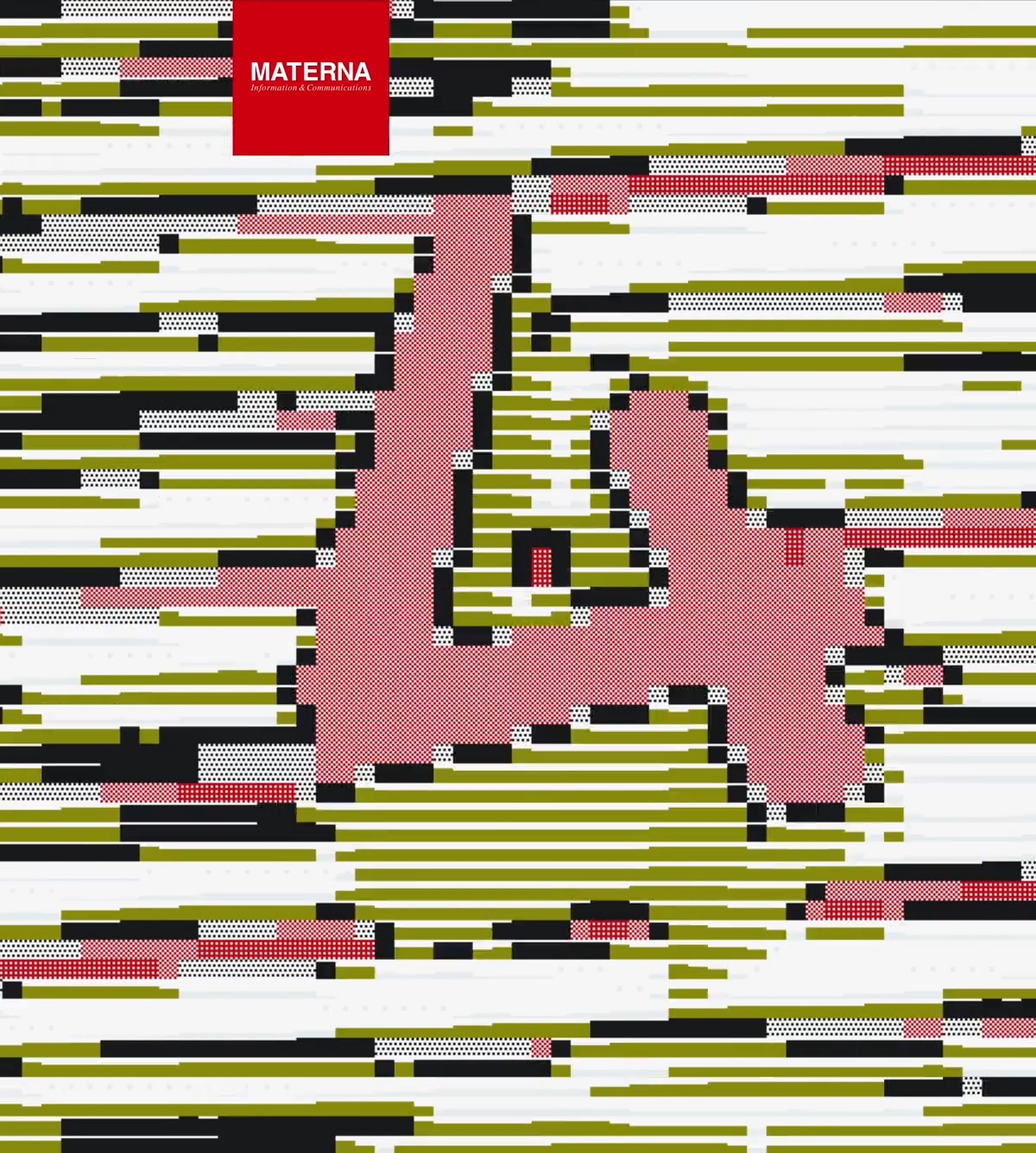
Reimagining Recruitment with Code
Rather than relying on standard application forms and impersonal assessments, Materna posed a pivotal question: How can we create a more engaging process to find new IT talent and programmers?
In collaboration with the creative minds at Meiré und Meiré, a bold new concept emerged—a four-level gamified coding challenge designed to draw in developers not just with tasks, but with puzzles, visuals, and play.
The project was brought to life by Nahuel Gerth, Tim Rodenbröker and Julian Hespenheide, combining their creative coding expertise with a design-driven approach to recruitment. Together, they built something far more meaningful than a skills test: they created a space where programmers could enjoy the process of problem-solving, showcasing both their technical ability and creativity.
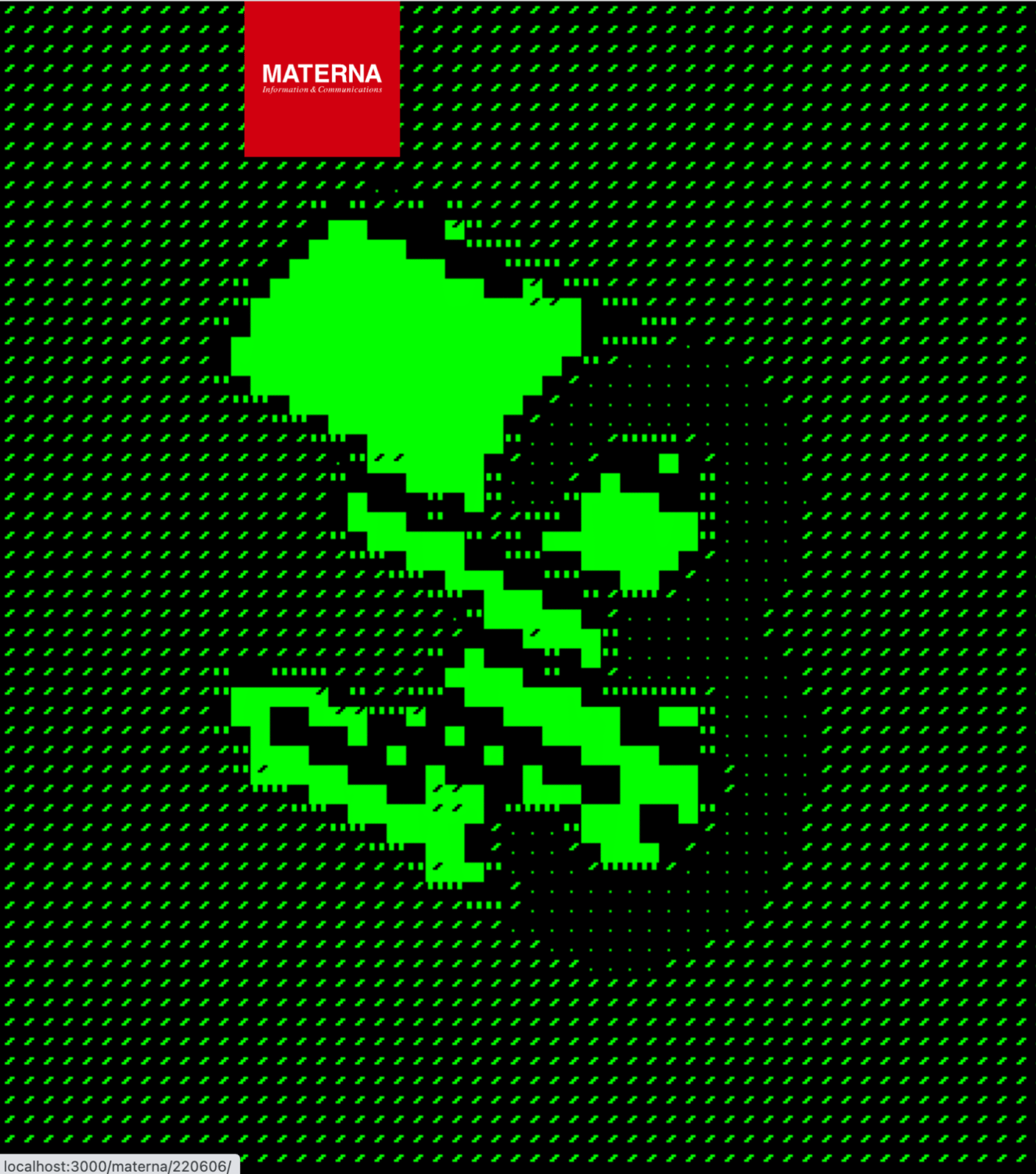
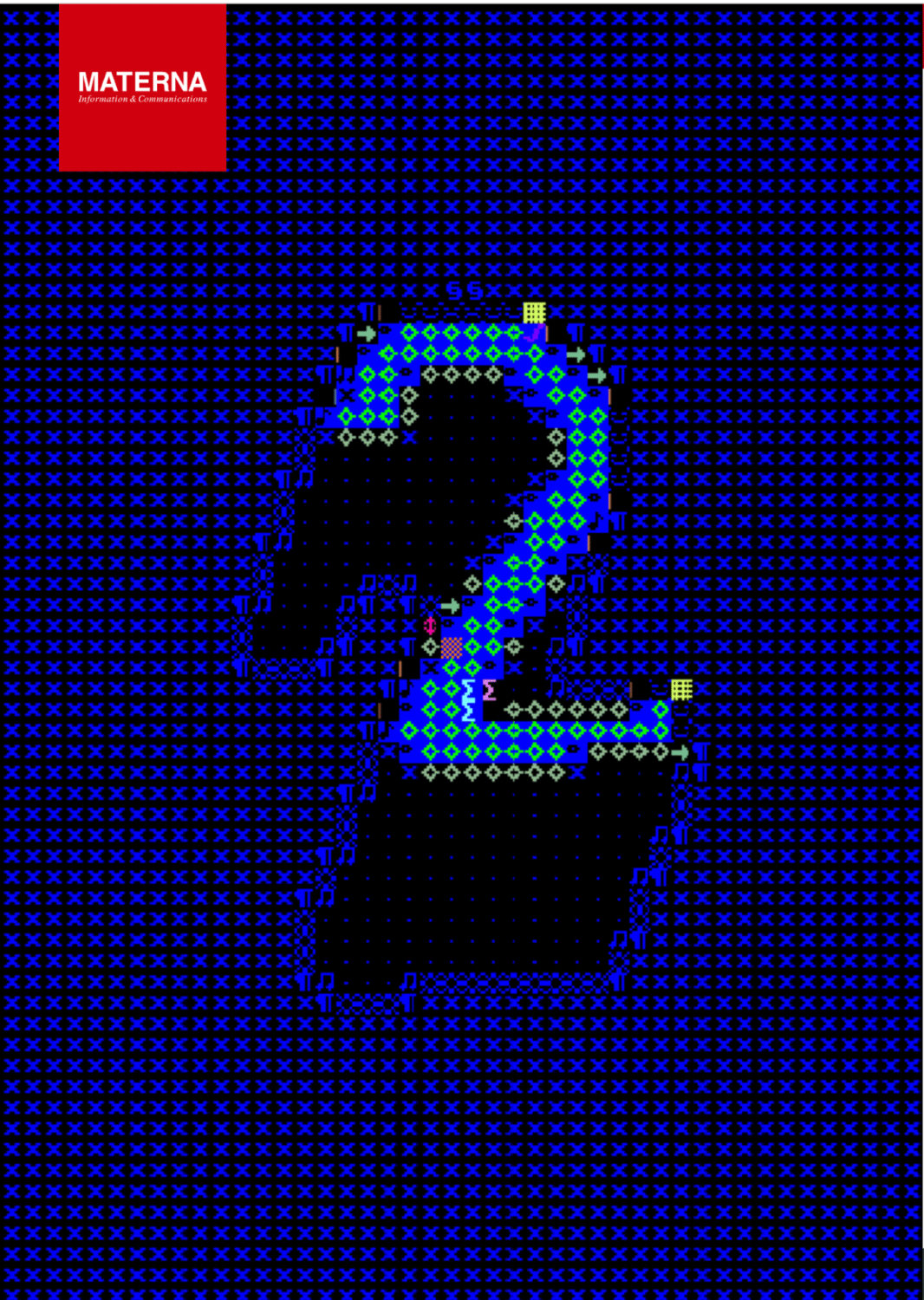
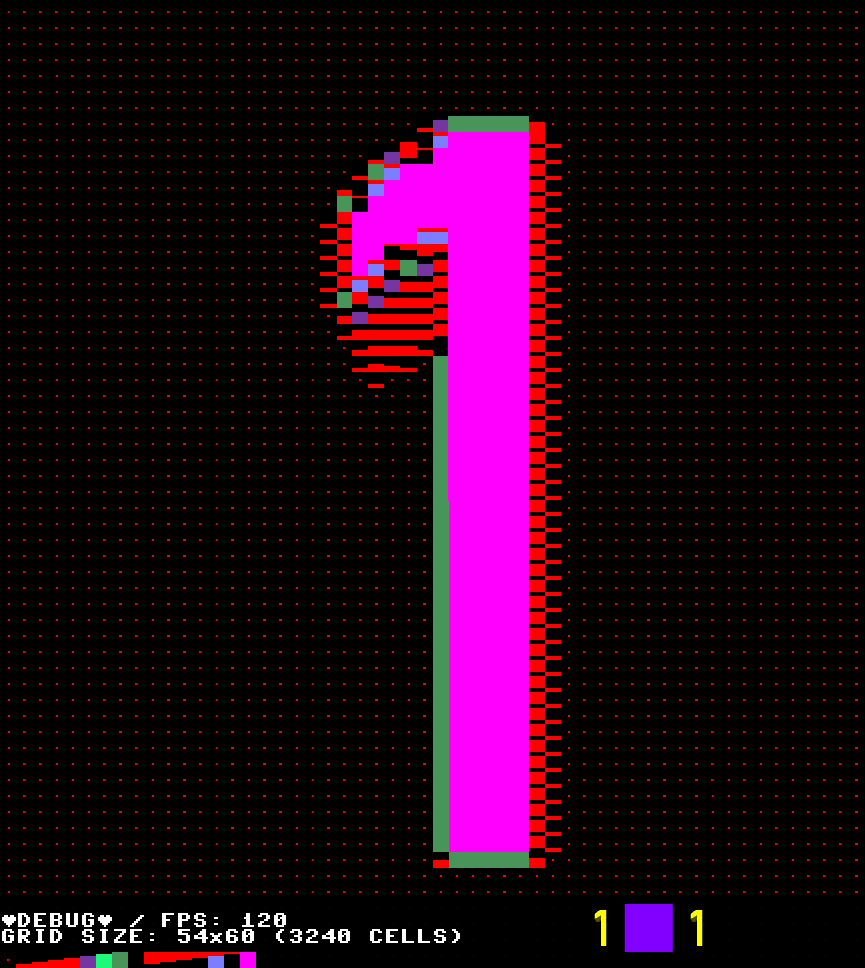
How It Works
The experience is hosted at maternacodechallenge.de, where users are invited to take on a four-level challenge. Each level presents a compact block of broken code—containing errors, logic traps, and clever riddles—that must be debugged and solved. It’s a test of knowledge, yes, but also of curiosity and lateral thinking.
But what truly sets the experience apart is its interface. Each solution affects a live ASCII generator embedded in the platform, turning correct inputs into dynamic visual responses. The puzzles come to life in real-time, morphing as participants find their way forward. It’s an elegant blend of retro computing aesthetics and modern interactive design, transforming code into an art form.
This visualisation isn’t just eye-catching—it reinforces a central message: code can be expressive, beautiful, and alive.
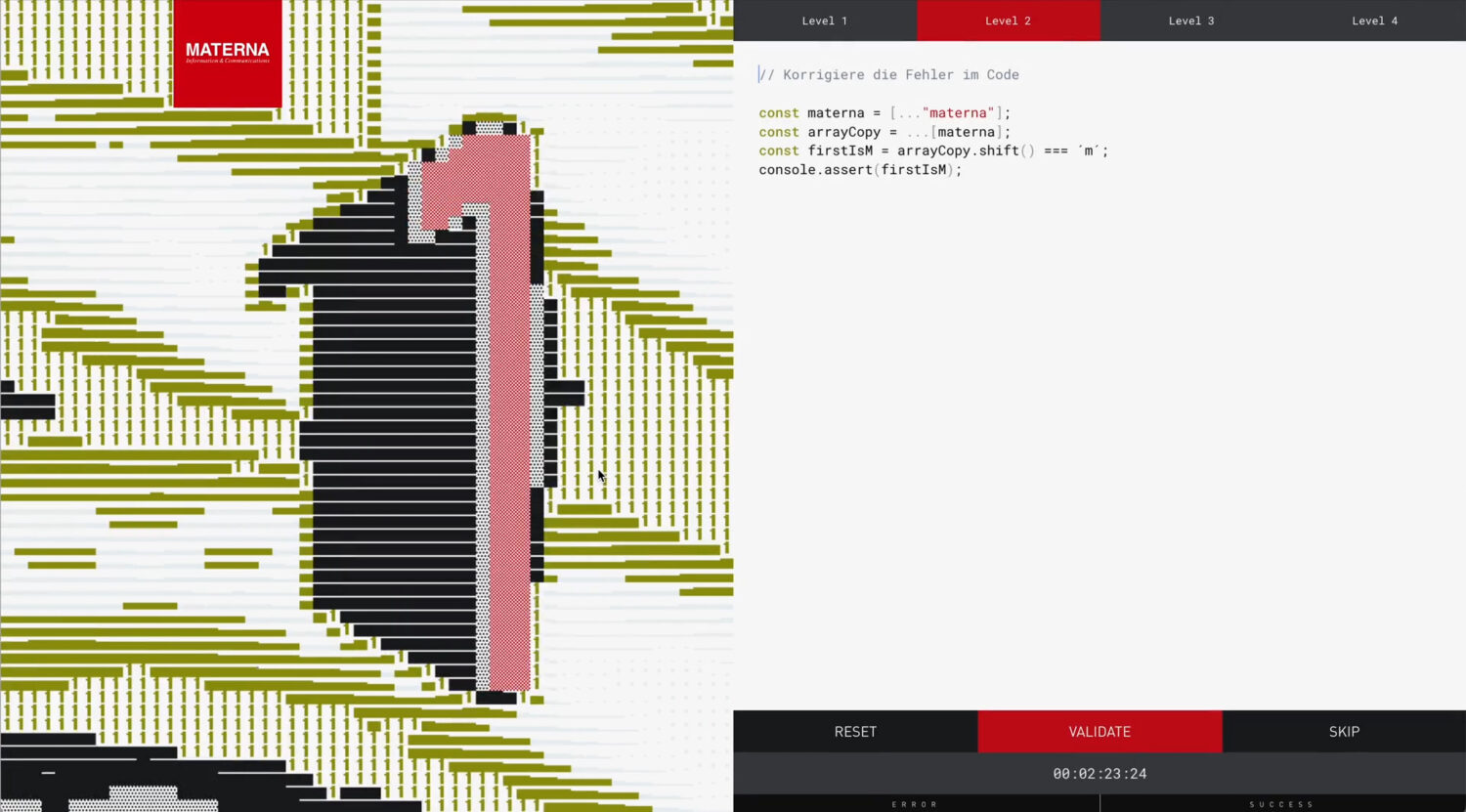
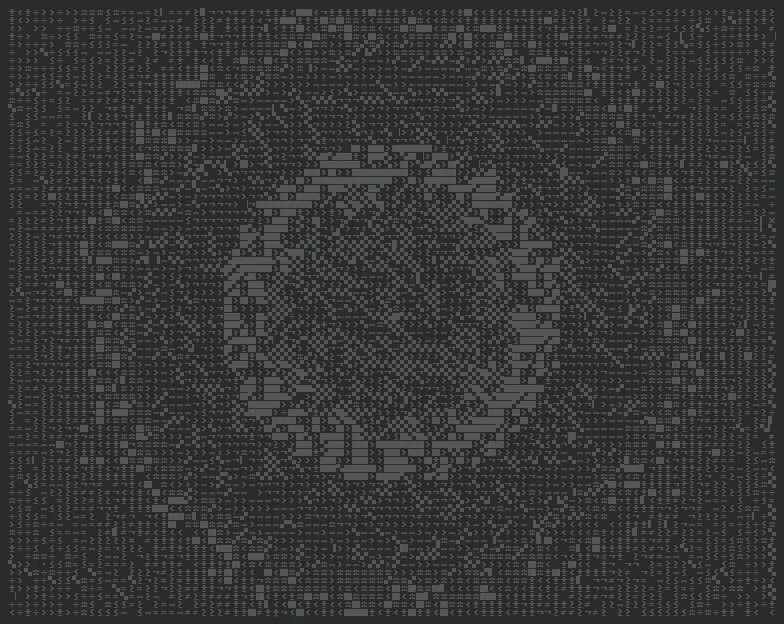
Creative Coding with a Purpose
For Gerth, Rodenbröker, and Hespenheide, the project was an opportunity to embed creative coding within a purposeful, real-world setting. Rather than treating code as a static utility, they approached it as a playground for experimentation—a space where visuals, interactivity, and logic could co-exist to form a more humane and engaging user experience.
Building a Bridge Between Talent and Tech
The Beautiful Code Project does more than assess candidates—it connects with them. It speaks directly to developers who value clever code, elegant logic, and expressive problem-solving. It tells them: we see what you do, and we care about how you do it.
Through this challenge, Materna moves away from generic talent funnels and toward something more immersive, meaningful, and joyful. It captures the essence of modern coding culture and transforms recruitment into a creative experience worth remembering.
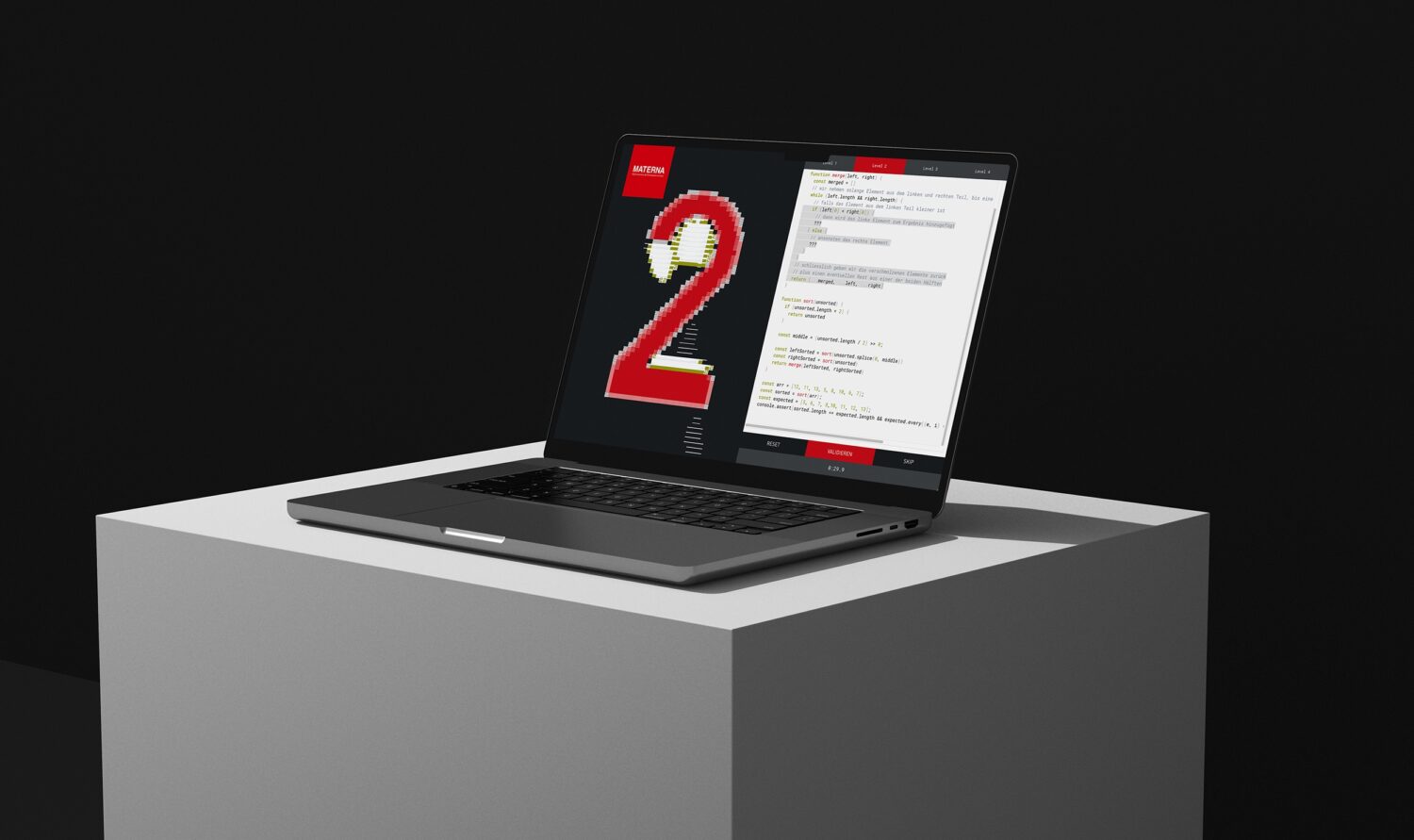
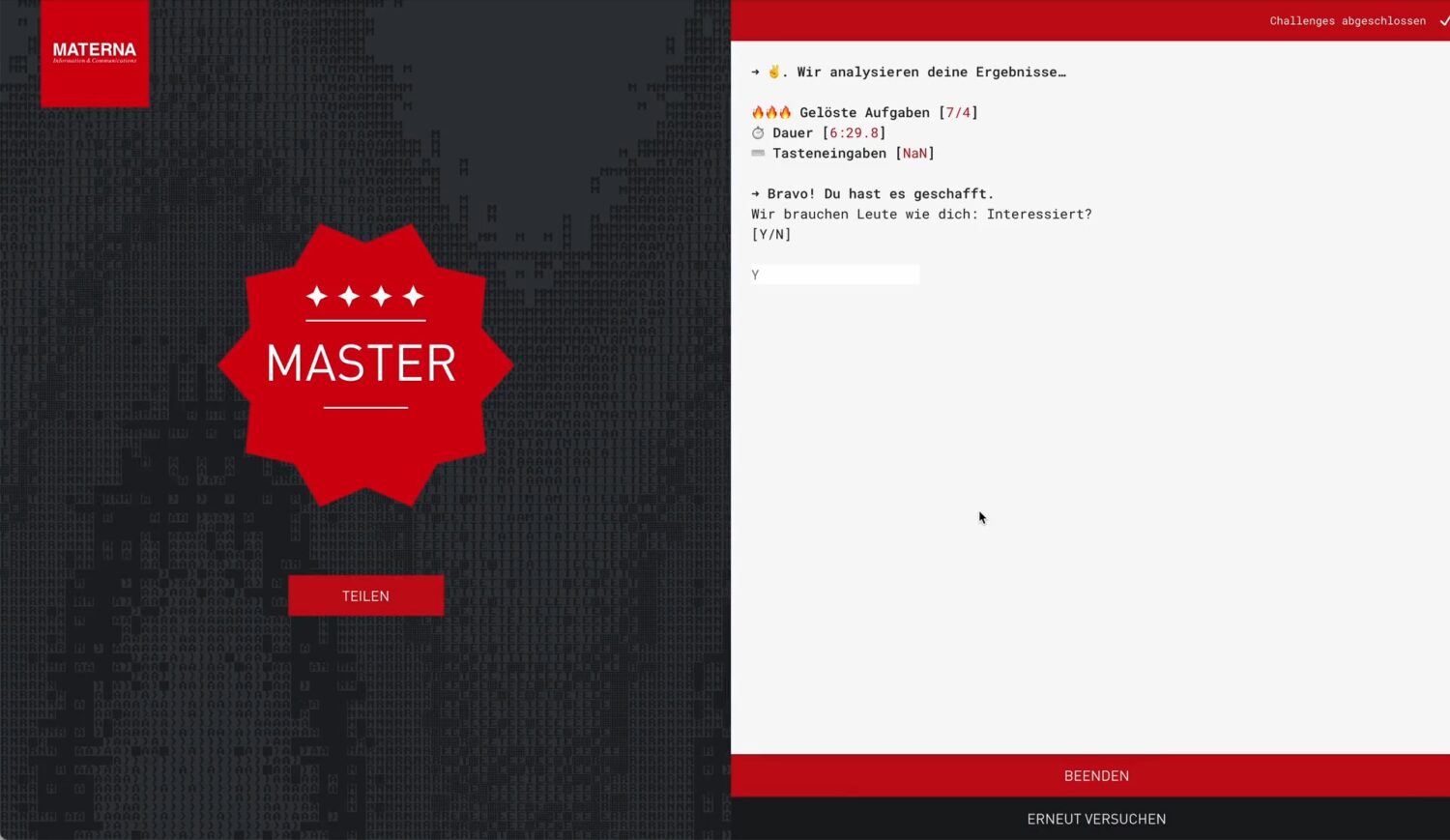
Ultimately, the Beautiful Code Project is a celebration of code, of creativity, and of collaboration, demonstrating that with the right concept and execution, even something as utilitarian as hiring can be transformed into a beautiful, impactful journey.